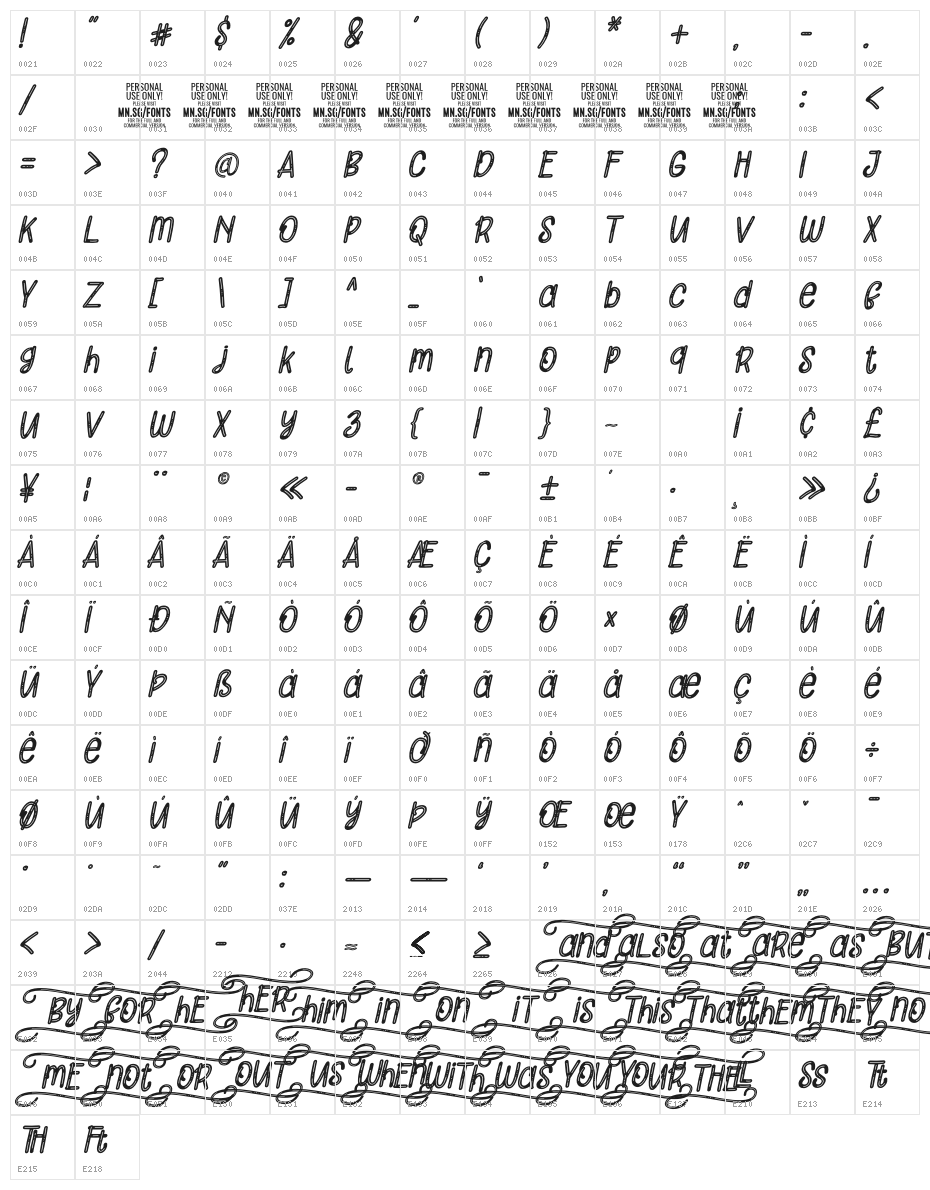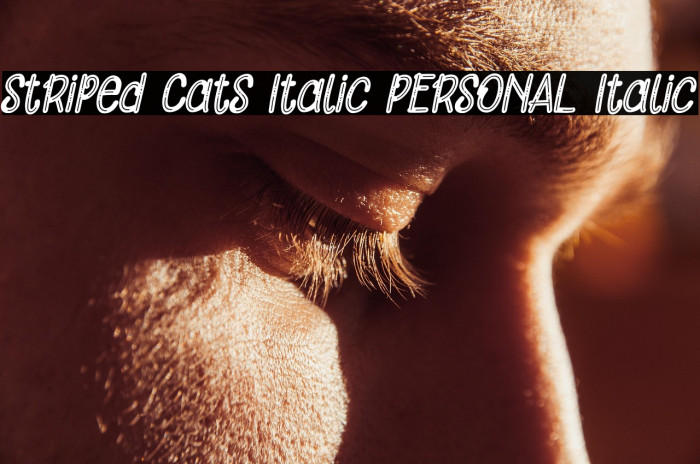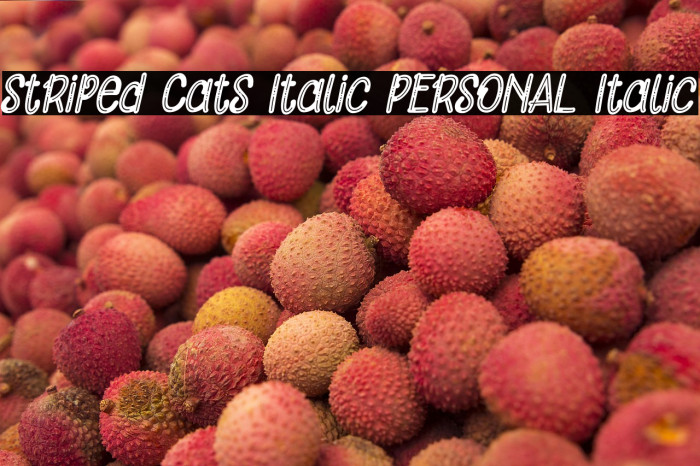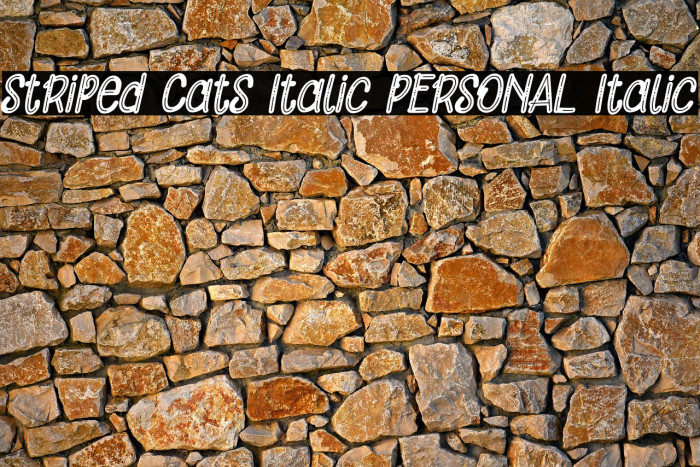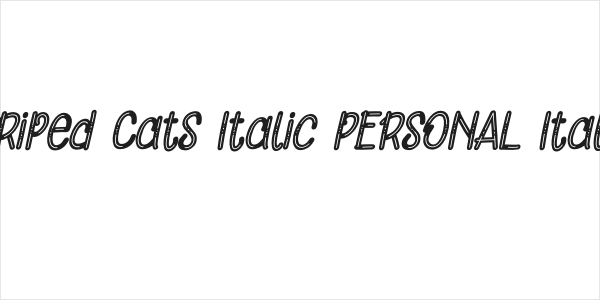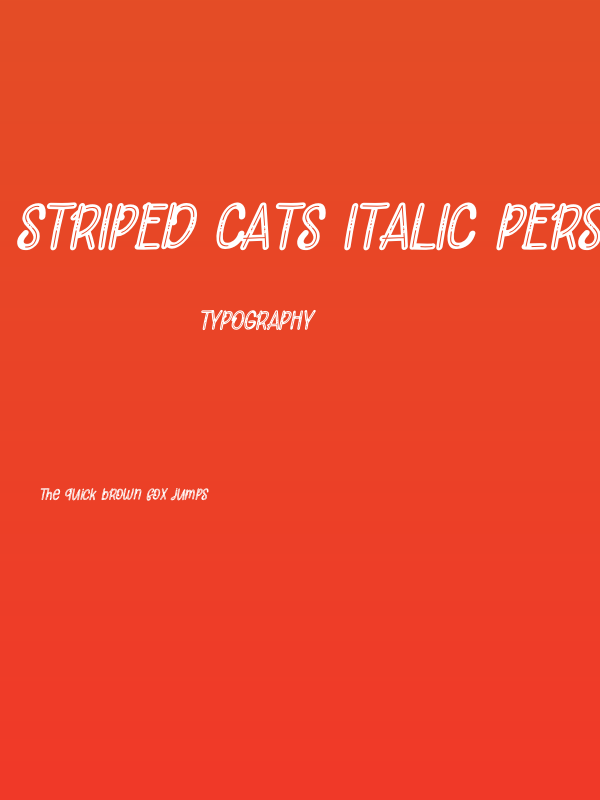
Striped Cats Italic PERSONAL Italic Font
Striped Cats Italic PERSONAL Italic Description
This font features a playful and dynamic design with a striped pattern running through each character, giving it a unique and eye-catching appearance. The letters are italicized, adding a sense of movement and fluidity. The strokes are bold and consistent, with rounded edges that soften the overall look. The uppercase and lowercase letters maintain a cohesive style, while the numbers and special characters complement the alphabet with the same striped detail. This font is perfect for projects that require a fun and informal touch, such as children's books, playful branding, or creative posters.
| Overall Style | Playful, Decorative |
| Proposed Projects | Ideal for children's books, playful branding, creative posters, and informal invitations. |